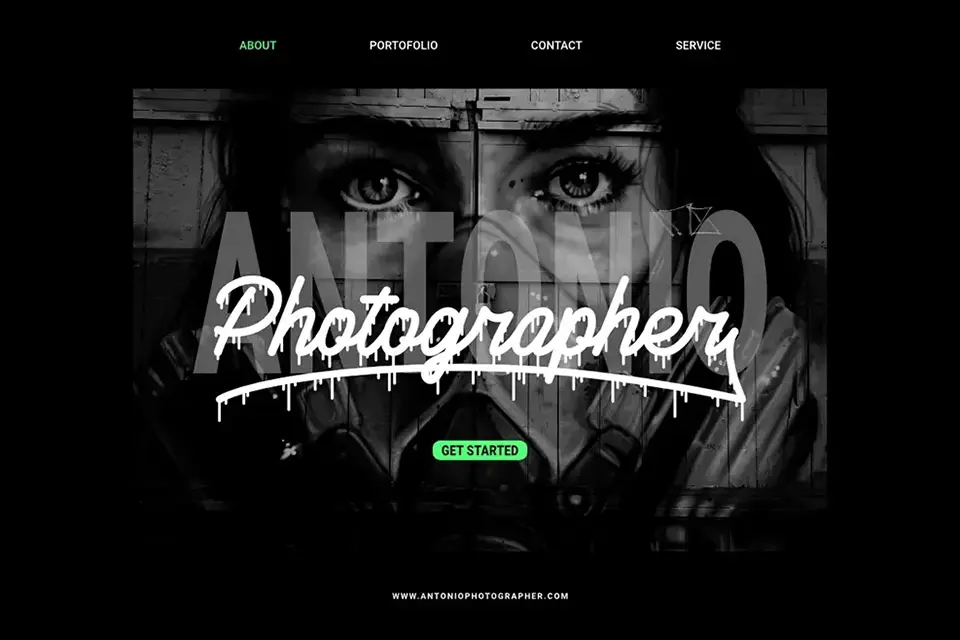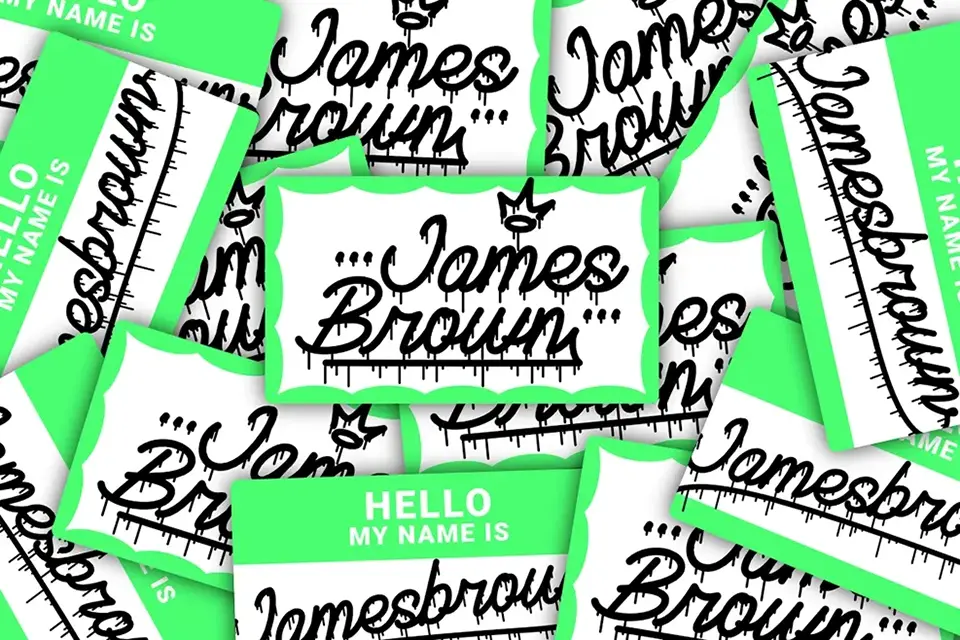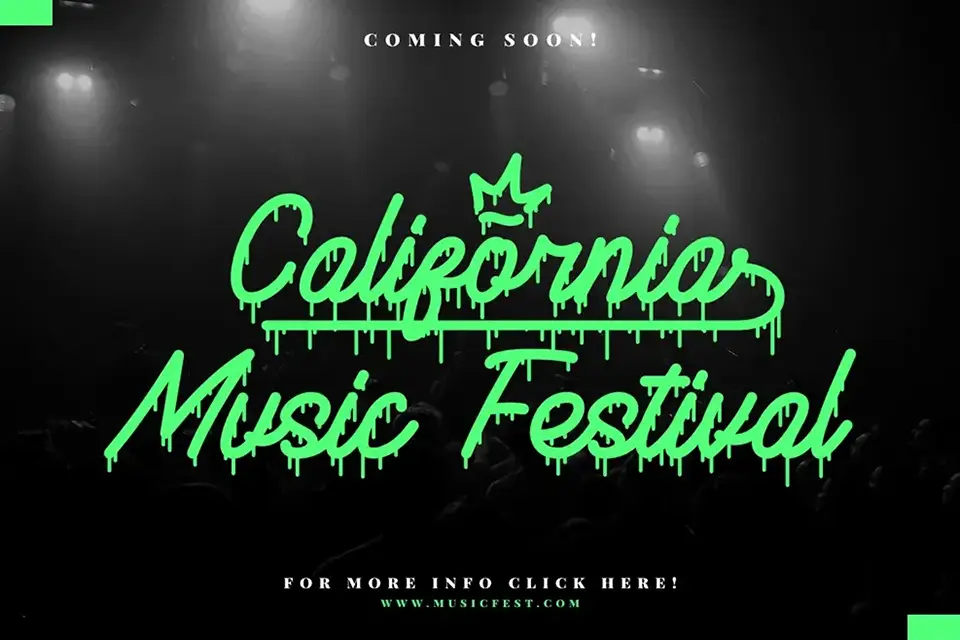
Onedrips Font
Onedrips is a captivating graffiti and script font designed to combine urban edge with elegant calligraphy. This versatile typeface features fluid strokes and intricate ink-drop details, making it perfect for signatures, posters, merchandise designs, album covers, and social media content. With its rebellious yet artistic vibe, Onedrips ensures visually striking results across various creative projects, offering a seamless blend of contemporary style and expressive typography.